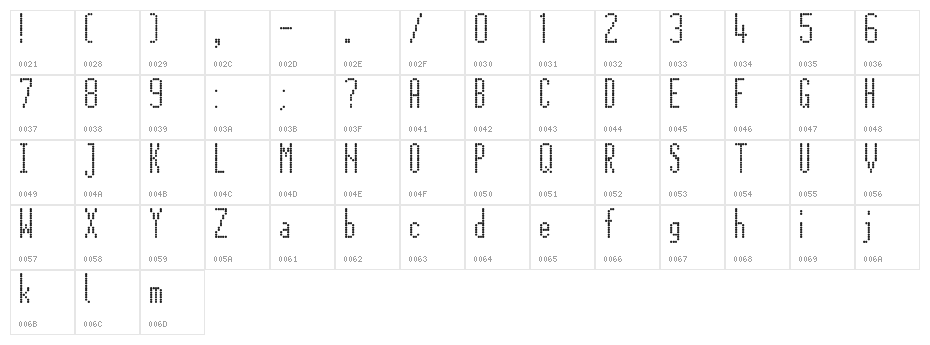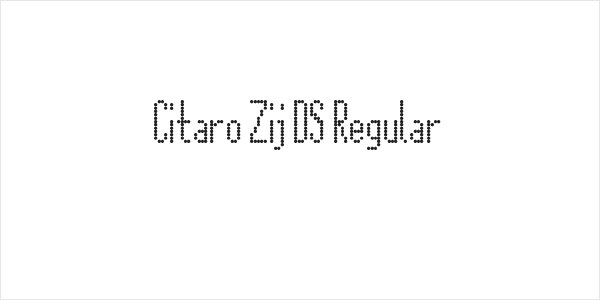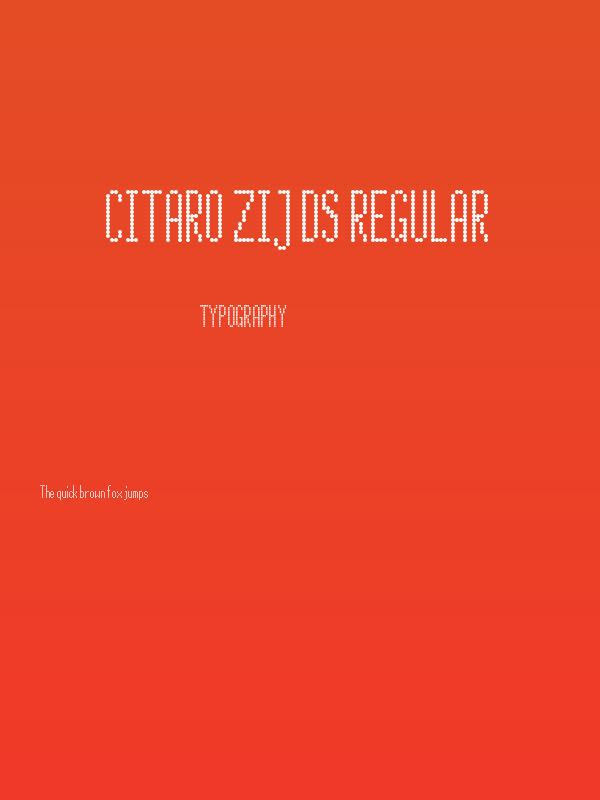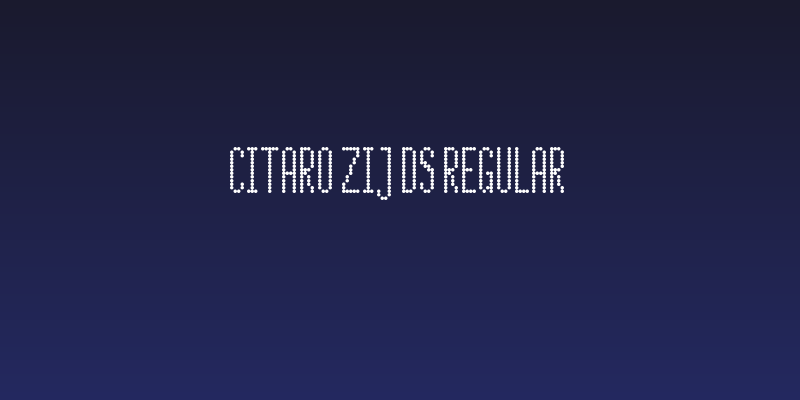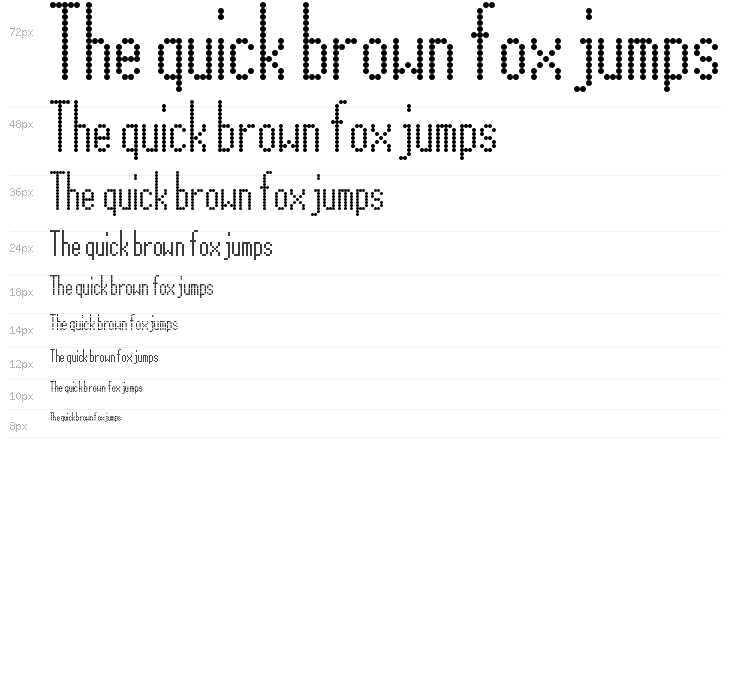
Citaro Zij DS Regular Font
Citaro Zij DS Regular Description
This font features a unique design composed entirely of small, evenly spaced dots forming each character. The style is reminiscent of digital or LED displays, giving it a modern and technological feel. The uppercase and lowercase letters maintain consistent proportions, with rounded edges that soften the overall appearance. Numbers and special characters follow the same dot pattern, ensuring uniformity across all elements. The font's playful yet structured design makes it suitable for creative and innovative projects, where a futuristic or digital aesthetic is desired.
| Use Case | Logos, Headlines, Digital displays |
| Proposed Projects | Ideal for digital displays, tech-themed designs, futuristic branding, and creative posters. |